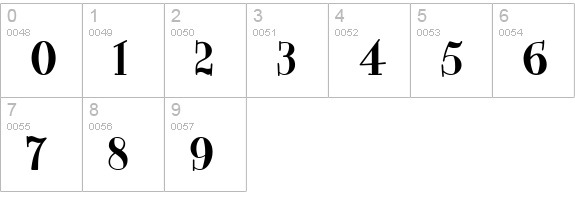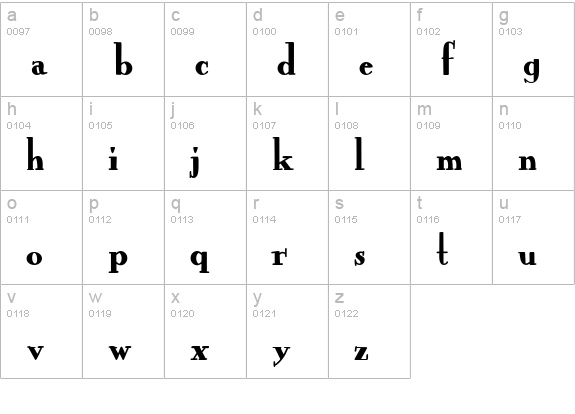
CK Stylish Black Font Details
CK Stylish Black is a maximum-weight, dramatic variant in the CK typeface family \xE2\x80\x94 well suited to maximum-impact headlines, posters, and packaging.
Introducing CK Stylish Black font, a sleek and modern typeface that exudes sophistication and elegance. With its bold and sharp design, this font is perfect for making a bold statement in your projects. The CK Stylish Black font is versatile and can be used for a wide range of design applications, from branding to editorial design. Best of all, the CK Stylish Black font is completely free to download at FontsMarket.com. This means you can easily access this stylish font and elevate your designs without any cost. Whether you're designing a poster, logo, or website, the CK Stylish Black font will add a touch of sophistication and flair to your work. Download this font today and enhance your design projects with its sleek and stylish aesthetic.